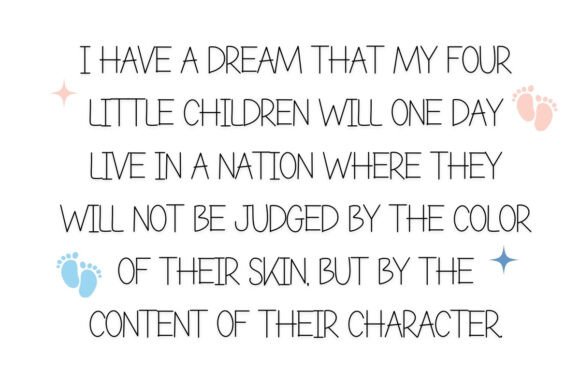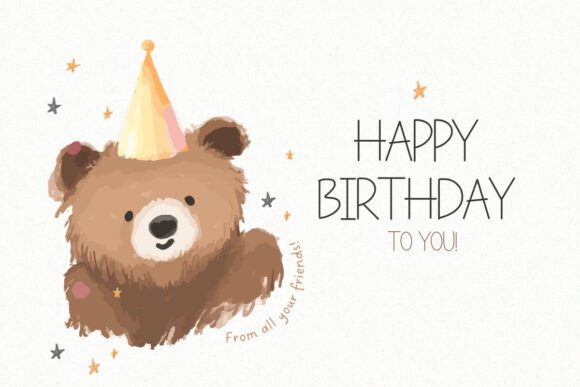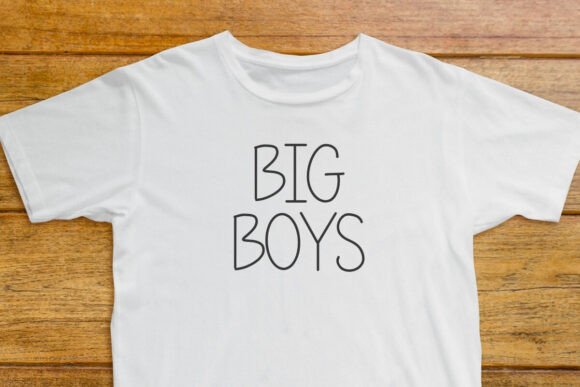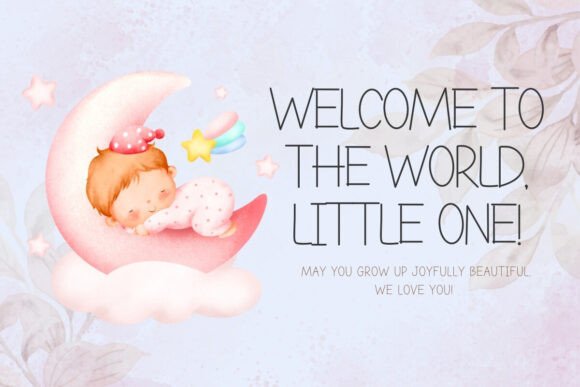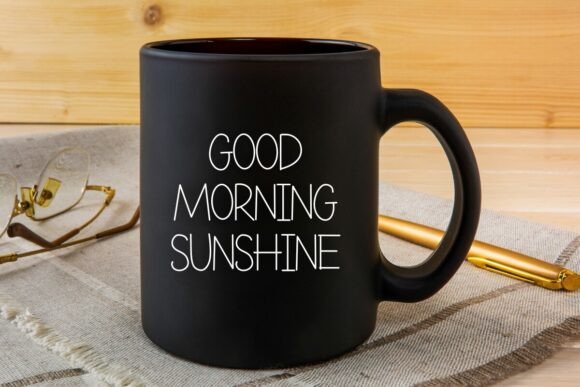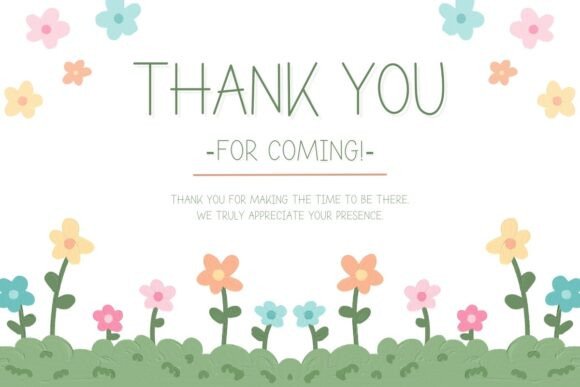
Babyboy Font: The Cute and Unique Sans-Serif Font for Your Favorite Projects
Are you a designer or crafter looking for a font that can add a touch of elegance and uniqueness to your projects? Look no further than the Babyboy font! This cute and charming sans-serif font is described by its elegant touch, making it perfect for a wide range of applications. In this article, we’ll take a closer look at the Babyboy font, its features, and how you can use it to create spectacular designs.
What is Babyboy Font?
Babyboy font is a sans-serif font that is designed to be both cute and elegant. Its unique style is characterized by its smooth lines, rounded edges, and elegant touch. The font is perfect for designers and crafters who want to add a personal touch to their projects, whether it’s a logo, a poster, a website, or a social media graphic.
Features of Babyboy Font
The Babyboy font has several features that make it stand out from other fonts. Some of its key features include:
- Unique and Timeless Style: The Babyboy font has a distinct and timeless style that will make your designs stand out from the crowd.
- Elegant Touch: The font has an elegant touch that makes it perfect for projects that require a touch of sophistication.
- Cute and Charming: The Babyboy font is designed to be cute and charming, making it perfect for projects that require a playful touch.
- Easy to Read: The font is easy to read, even at small sizes, making it perfect for body text and headings.
- Versatile: The Babyboy font can be used for a wide range of projects, from logos and posters to websites and social media graphics.
How to Use Babyboy Font
The Babyboy font is easy to use and can be applied to a wide range of projects. Here are some ideas for using the Babyboy font:
- Logos and Branding: Use the Babyboy font to create a unique and memorable logo for your business or brand.
- Posters and Flyers: The Babyboy font is perfect for creating eye-catching posters and flyers for events, promotions, and products.
- Websites and Blogs: Use the Babyboy font to add a personal touch to your website or blog.
- Social Media Graphics: The Babyboy font is perfect for creating social media graphics, such as Facebook posts, Twitter headers, and Instagram stories.
- Crafting and DIY Projects: Use the Babyboy font to add a personal touch to your crafting and DIY projects, such as handmade cards, gift tags, and scrapbook pages.
Tips for Using Babyboy Font
Here are some tips for using the Babyboy font:
- Use it Sparingly: Use the Babyboy font sparingly to avoid overwhelming your design.
- Pair it with Other Fonts: Pair the Babyboy font with other fonts to create a unique and interesting contrast.
- Keep it Simple: Keep your design simple and clean to let the Babyboy font shine.
In conclusion, the Babyboy font is a cute and unique sans-serif font that is perfect for designers and crafters who want to add a touch of elegance and uniqueness to their projects. Its timeless style, elegant touch, and cute and charming design make it perfect for a wide range of applications. With its ease of use and versatility, the Babyboy font is a great addition to any designer’s or crafter’s toolkit.